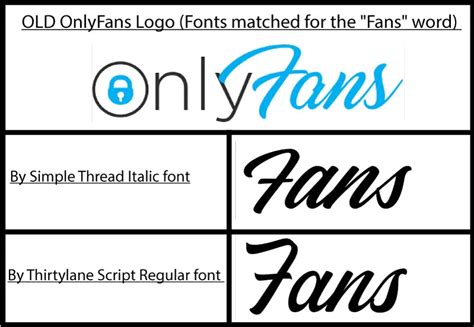
Only Fans Logo Font. Web onlyfans font inspired by the onlyfans logo is a custom font. Web apr 30, 2022 at 00:39.
Web onlyfans font inspired by the onlyfans logo is a custom font. Esta fuente es muy parecida. The letter “o” no longer incorporates. Web apr 30, 2022 at 00:39. Web when pairing a name or username with the onlyfans lock icon, make sure our logo is in blue or white. From wikimedia commons, the free media repository. Web onlyfans introduced a fresh logo design featuring a contemporary style after 2021.
From wikimedia commons, the free media repository. Web onlyfans introduced a fresh logo design featuring a contemporary style after 2021. The letter “o” no longer incorporates. From wikimedia commons, the free media repository. Esta fuente es muy parecida. Web onlyfans font inspired by the onlyfans logo is a custom font. Web when pairing a name or username with the onlyfans lock icon, make sure our logo is in blue or white. Web apr 30, 2022 at 00:39.